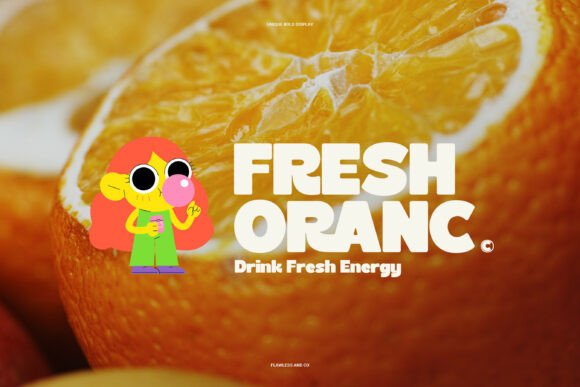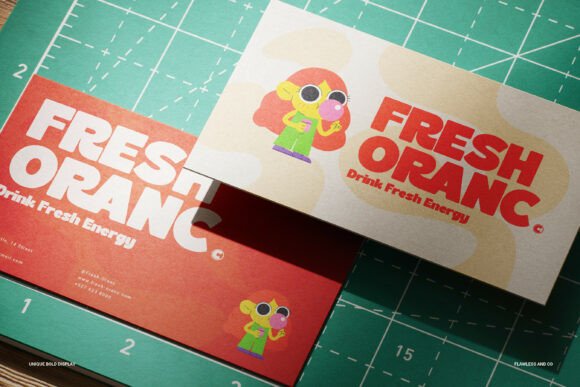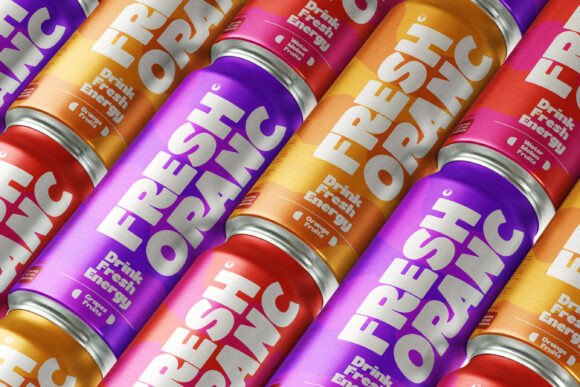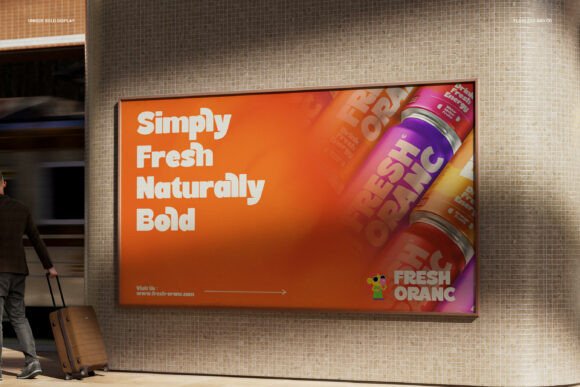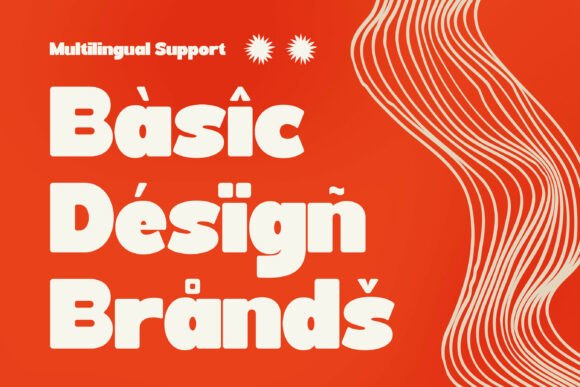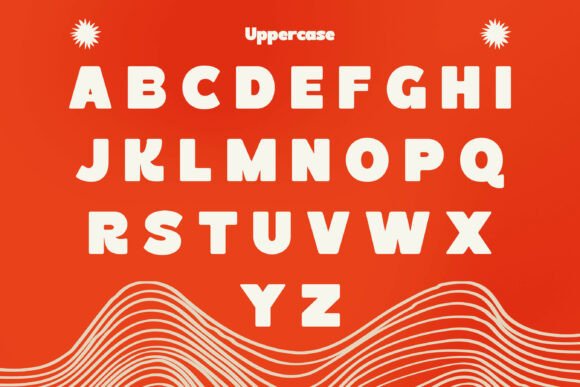
Introduction to Nakila Font
Nakila is a distinctive bold display font designed to deliver a strong and memorable visual impact.
With its unique letterforms, thick strokes, and eye-catching style, Nakila stands out effortlessly in any design Its bold and creative character makes it perfect for grabbing attention while maintaining clarity and readability.
Key Features of Nakila Font
Why Choose Nakila Font?
Nakila Font offers exceptional quality and versatility, making it a valuable addition to your design toolkit. Whether you’re creating for personal projects or commercial use, Nakila Font delivers professional results.